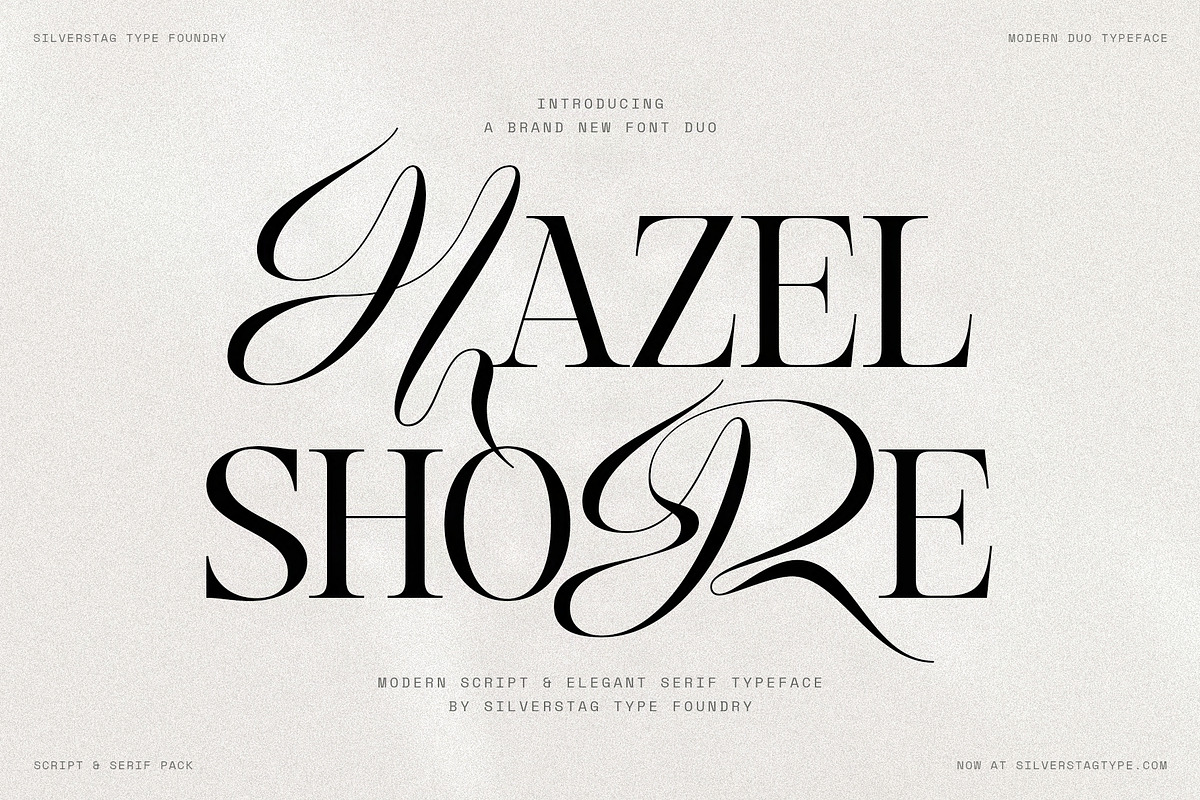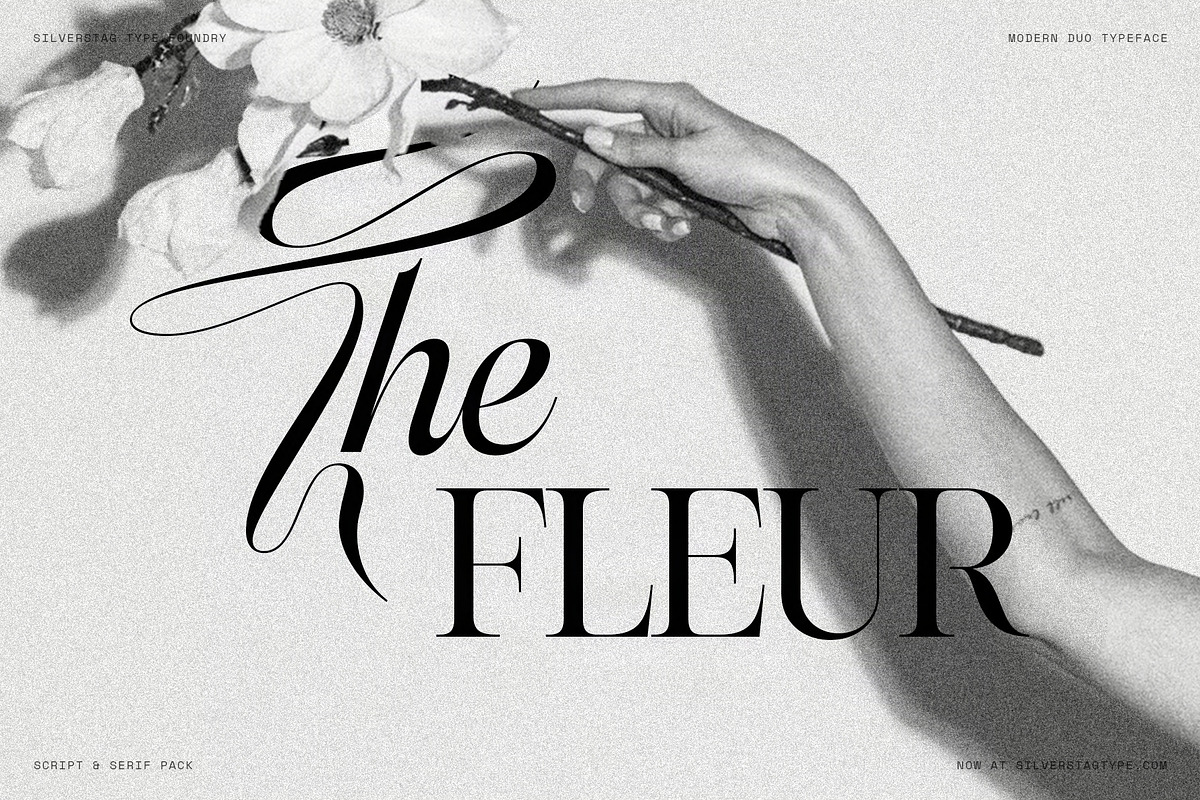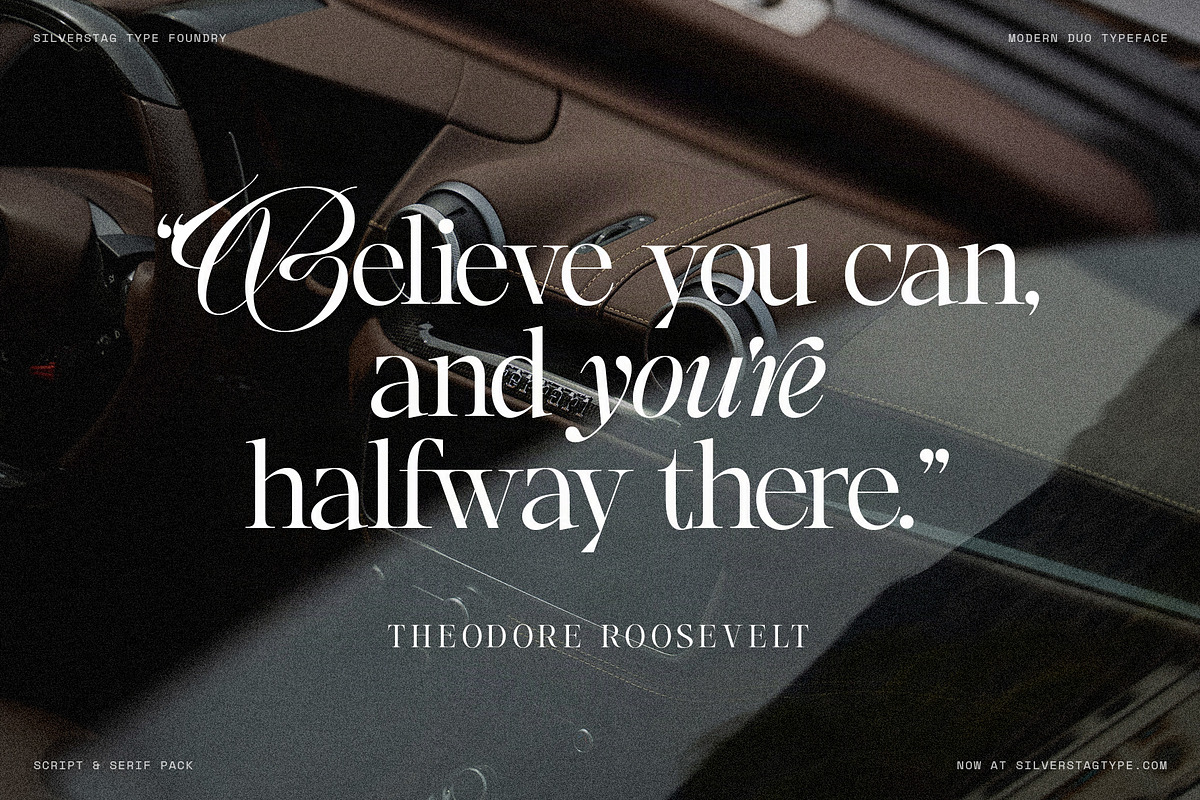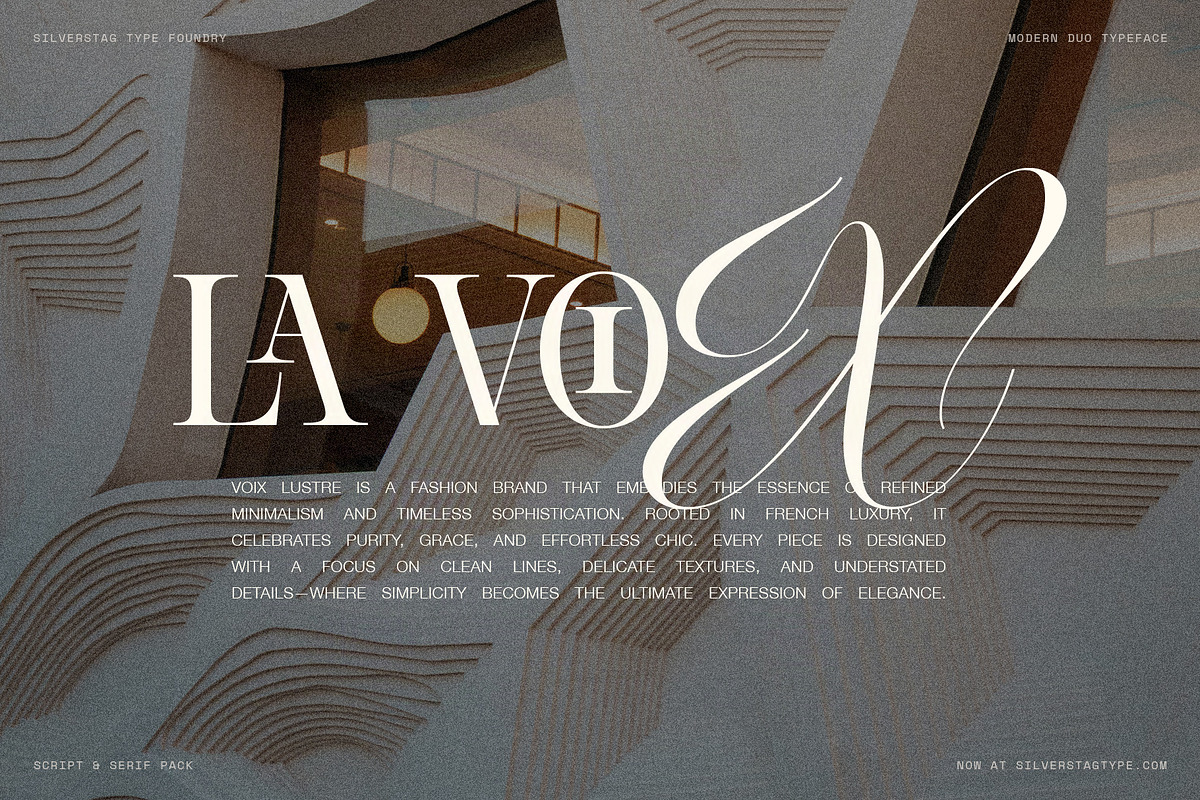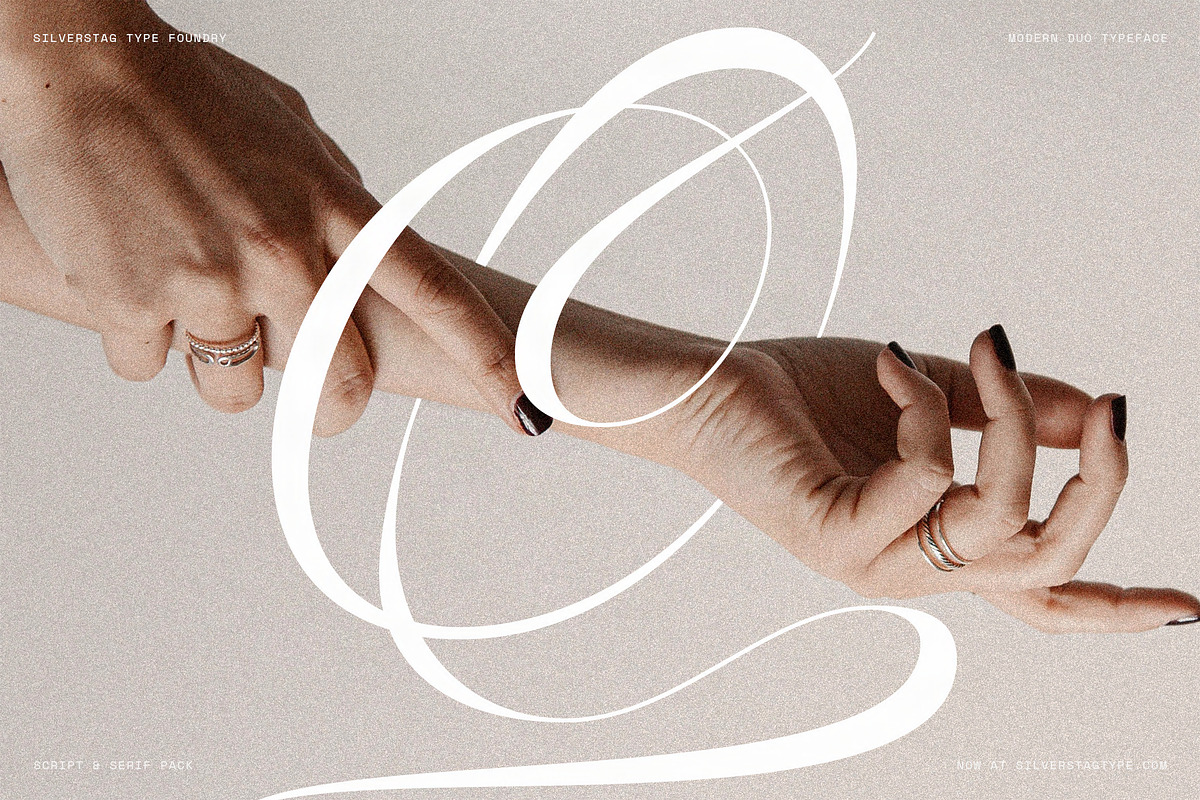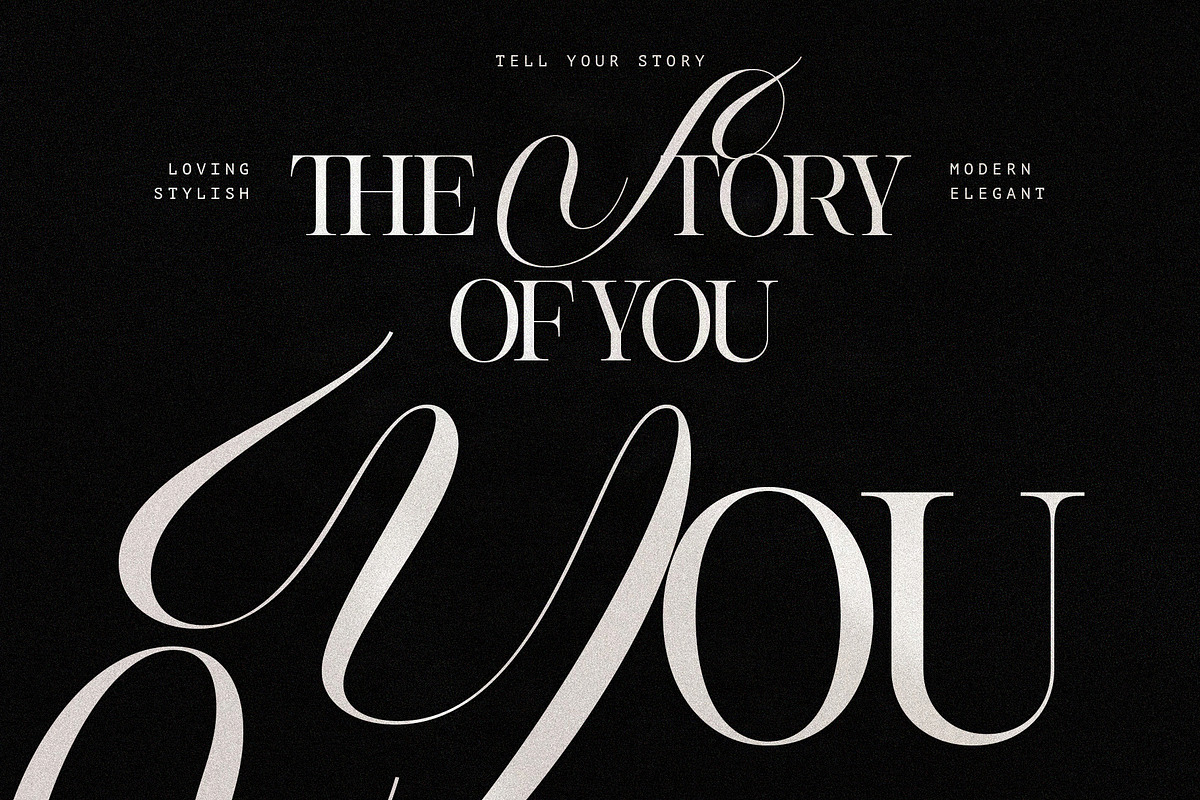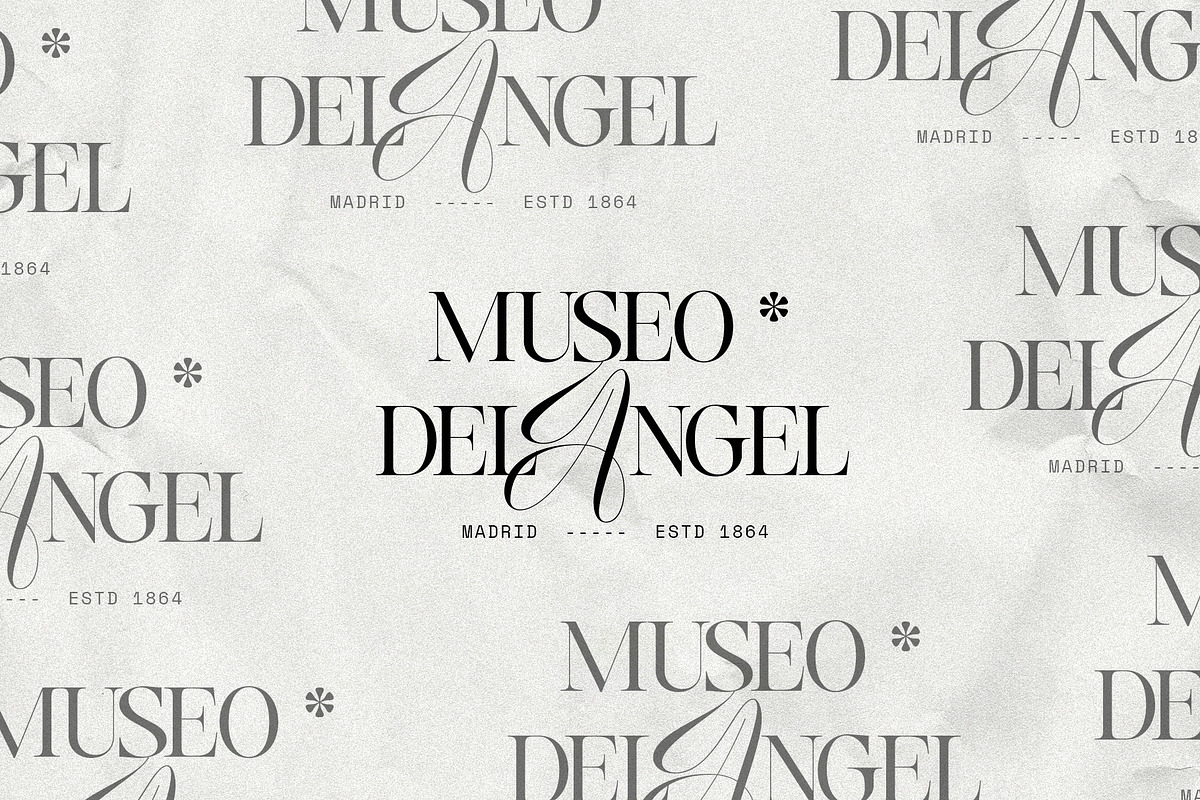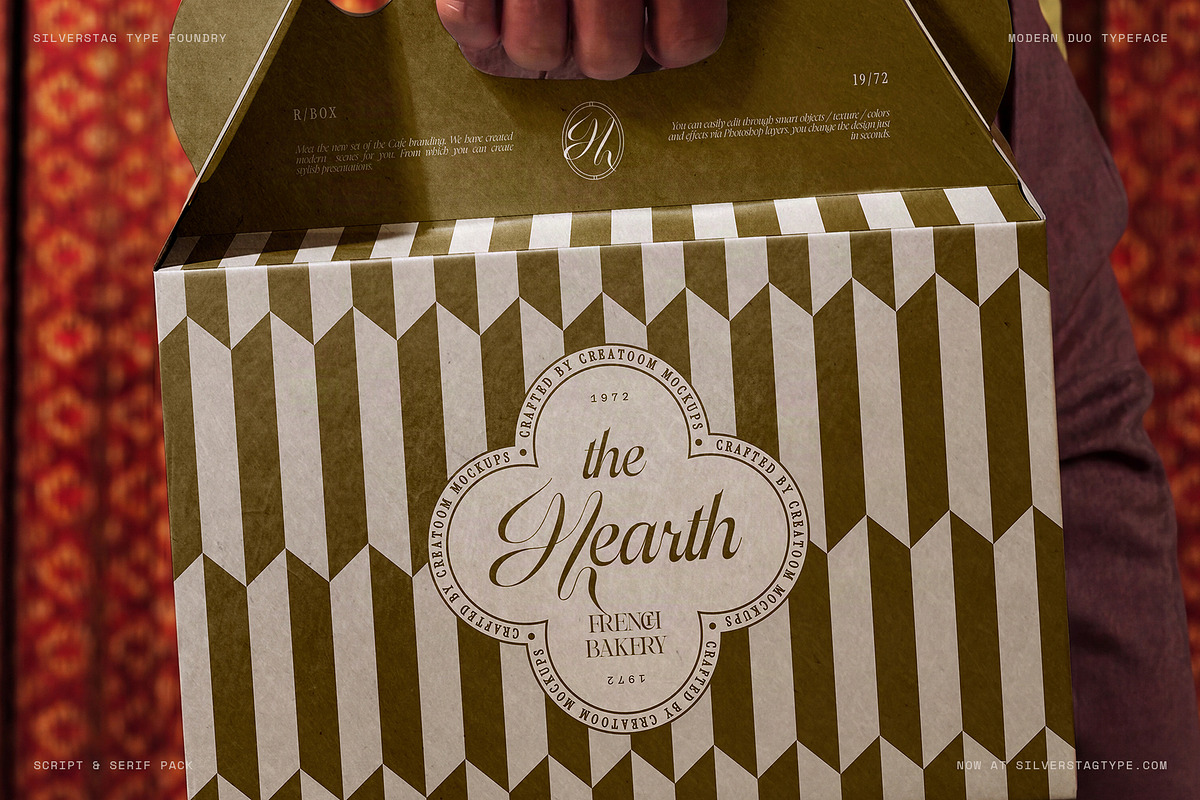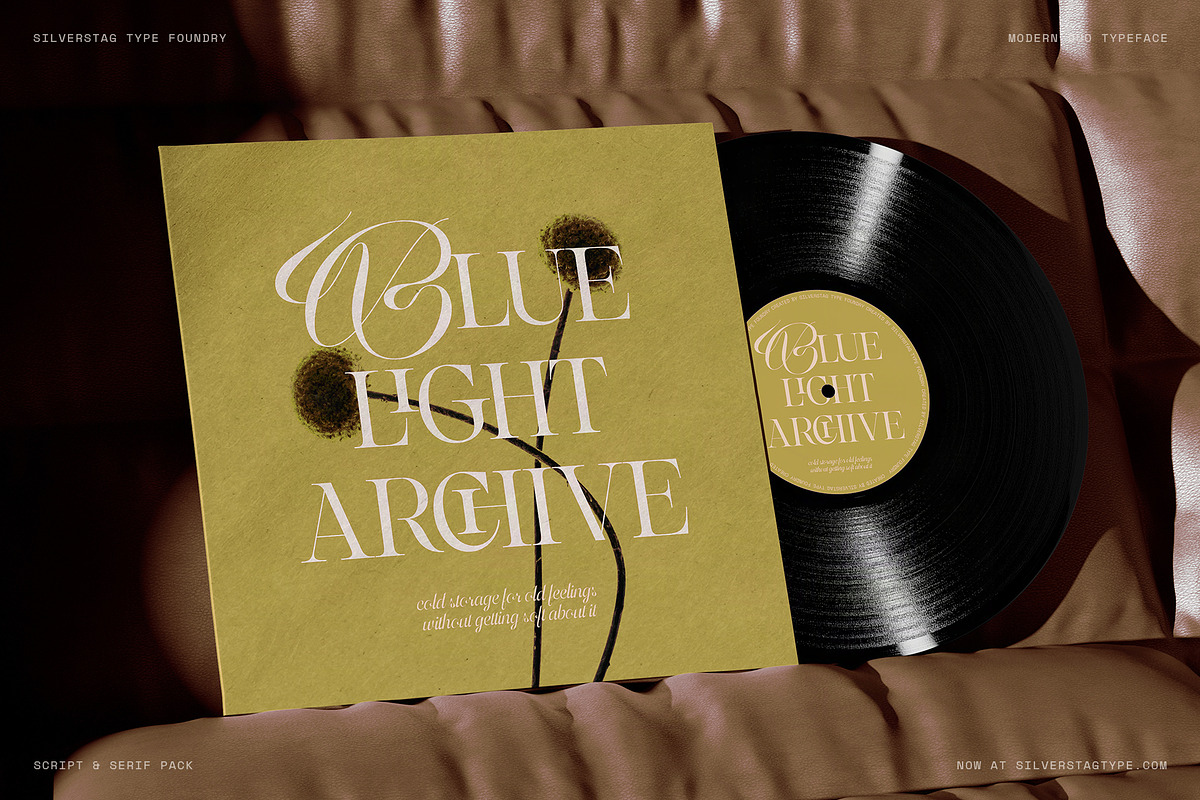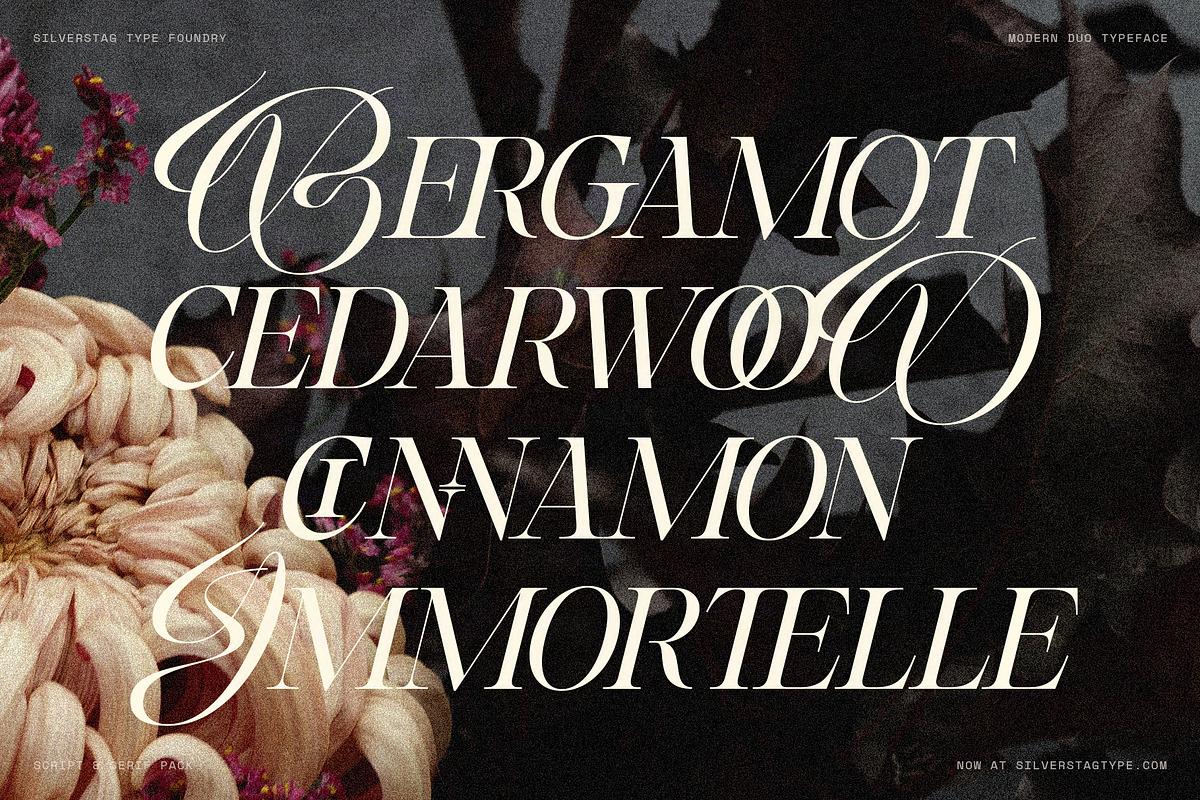
Hazel Shore - Serif & Script Duo
SLTF Hazel Shore is a serif & script font duo. A high contrast display serif with a matching true italic, and a flowing script drawn to sit inside it.
Set a word in the serif, swap one letter for its script counterpart, and the whole thing changes character. LONDON with a script L. CHRISTY with a script C. It works because both faces share the same x-height, cap height and proportions, drawn together rather than paired afterwards.
The serif carries 901 glyphs with 124 ligatures, plus old style and tabular figures, fractions, superscripts and subscripts. The italic has its own set of 111 ligatures. The script is the display partner, with long entry and exit strokes and contextual alternates that adjust the joins as you type.
Built for fashion and beauty branding, packaging, labels, editorial covers, stationery and logos.
SLTF Hazel Shore Regular
SLTF Hazel Shore Italic
SLTF Hazel Shore Script
Over 120 ligatures
Serif and italic support 100+ languages